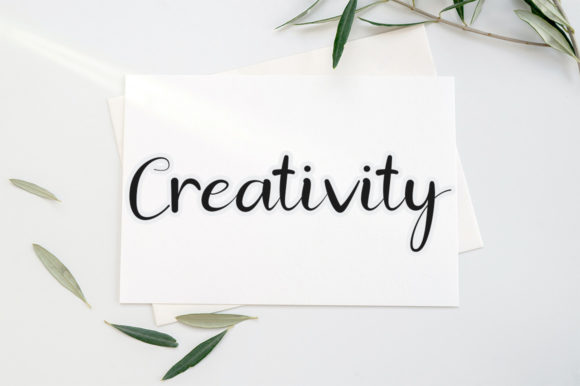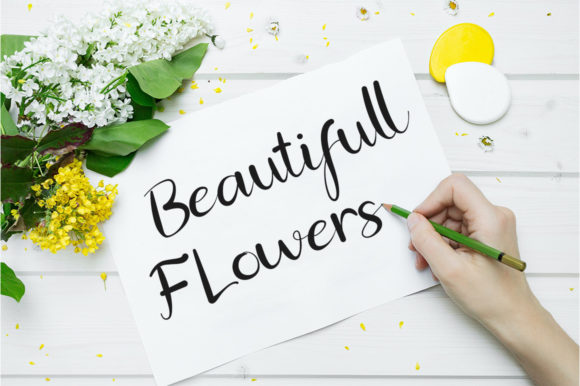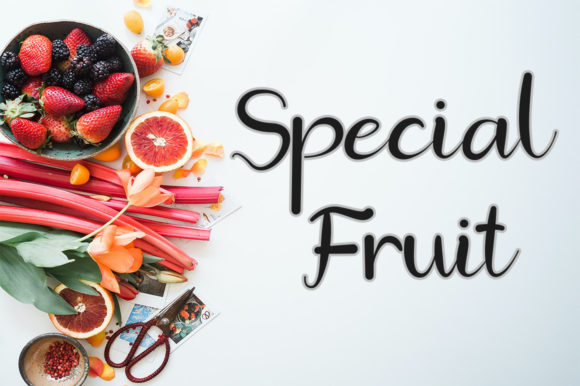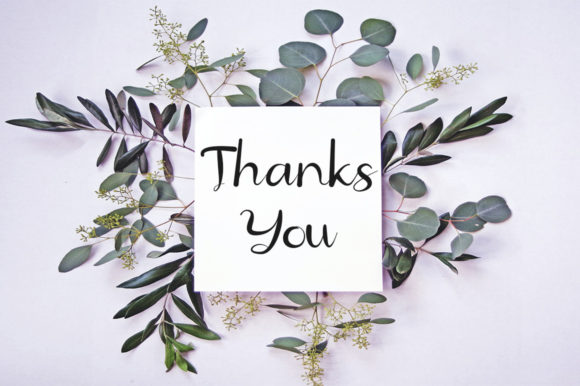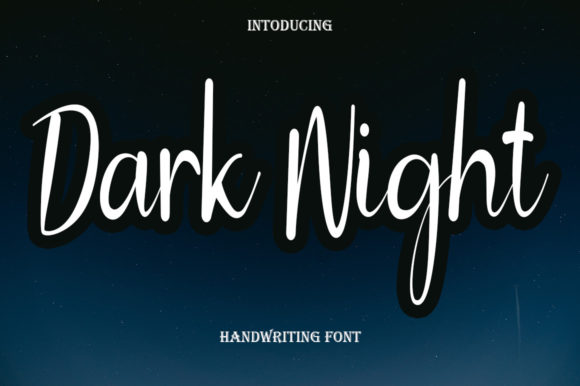
Discover the Enchanting Dark Night Font: Elevate Your Designs with Elegance
In the realm of typography, few fonts manage to convey the perfect blend of charm and sophistication. The Dark Night Font is one such exceptional typeface that has captured the hearts of designers and crafters alike. With its unique aesthetic, it brings an air of elegance and refinement to any design project. Whether you’re working on wedding invitations, thank you cards, quotes, greeting cards, logos, business cards, or any other design that requires a customized touch, the Dark Night Font is an excellent choice.
The Charm of Dark Night Font
What sets the Dark Night Font apart is its ability to feel equally charming and elegant. This versatility makes it an invaluable asset in a designer’s toolkit. The font’s design elements are carefully crafted to provide a luxurious feel, making it perfect for projects that demand a high level of sophistication. From formal events to personal projects, the Dark Night Font can elevate your designs to new heights.
Wedding planners, event coordinators, and designers often find themselves in search of the perfect font that can convey the desired level of elegance and charm. The Dark Night Font shines in such scenarios, offering a beautiful and refined look that complements wedding invitations, save-the-date cards, and other event-related designs. Its sophisticated appearance ensures that your designs stand out, making your clients’ special days even more memorable.
Enhance Your Stationery and Greeting Cards
Stationery and greeting cards are an excellent way to connect with friends, family, and clients on a personal level. The Dark Night Font can add a touch of elegance to thank you cards, greeting cards, and other stationery items. Its unique charm ensures that your cards and letters are not just appreciated for their content but also admired for their aesthetic appeal.
Boost Your Brand with Dark Night Font
For businesses and entrepreneurs, establishing a strong brand identity is crucial. The Dark Night Font can play a significant role in this process. Its elegant and charming appearance makes it suitable for logos, business cards, and other branding materials. By incorporating this font into your brand design, you can convey a sense of luxury and professionalism that resonates with your target audience.
Why Designers and Crafters Love Dark Night Font
Designers and crafters appreciate fonts that offer flexibility and aesthetic appeal. The Dark Night Font checks all the right boxes, providing a beautiful and versatile typeface that can be used across various design projects. Here are a few reasons why it’s a favorite among creatives:
• Elegance and Charm: The font’s sophisticated look adds a touch of elegance and charm to any design.
• Versatility: Suitable for a wide range of projects, from wedding designs to business branding.
• Customization: Offers a unique and customized look that can help your designs stand out.
Tips for Using Dark Night Font
To make the most of the Dark Night Font, consider the following tips:
• Pair with Complementary Fonts: Combine it with simpler fonts to create contrast and hierarchy in your designs.
• Experiment with Colors: While the font looks great in traditional colors like black and white, don’t be afraid to experiment with other hues to match your design theme.
• Adjust Letter Spacing: Tweaking the letter spacing can enhance the overall look and feel of your text, making it more readable and aesthetically pleasing.
Font Name Dark Night Font
Author AG Studio
The Dark Night Font is a remarkable typeface that brings a blend of charm and elegance to any design project. Its versatility and aesthetic appeal make it a valuable resource for designers and crafters looking to create stunning and memorable designs. Whether you’re working on wedding invitations, business branding, or personal projects, incorporating the Dark Night Font can elevate your designs to a new level of sophistication and charm.
So, why wait? Explore the enchanting world of the Dark Night Font and discover how it can transform your designs into elegant and captivating works of art.